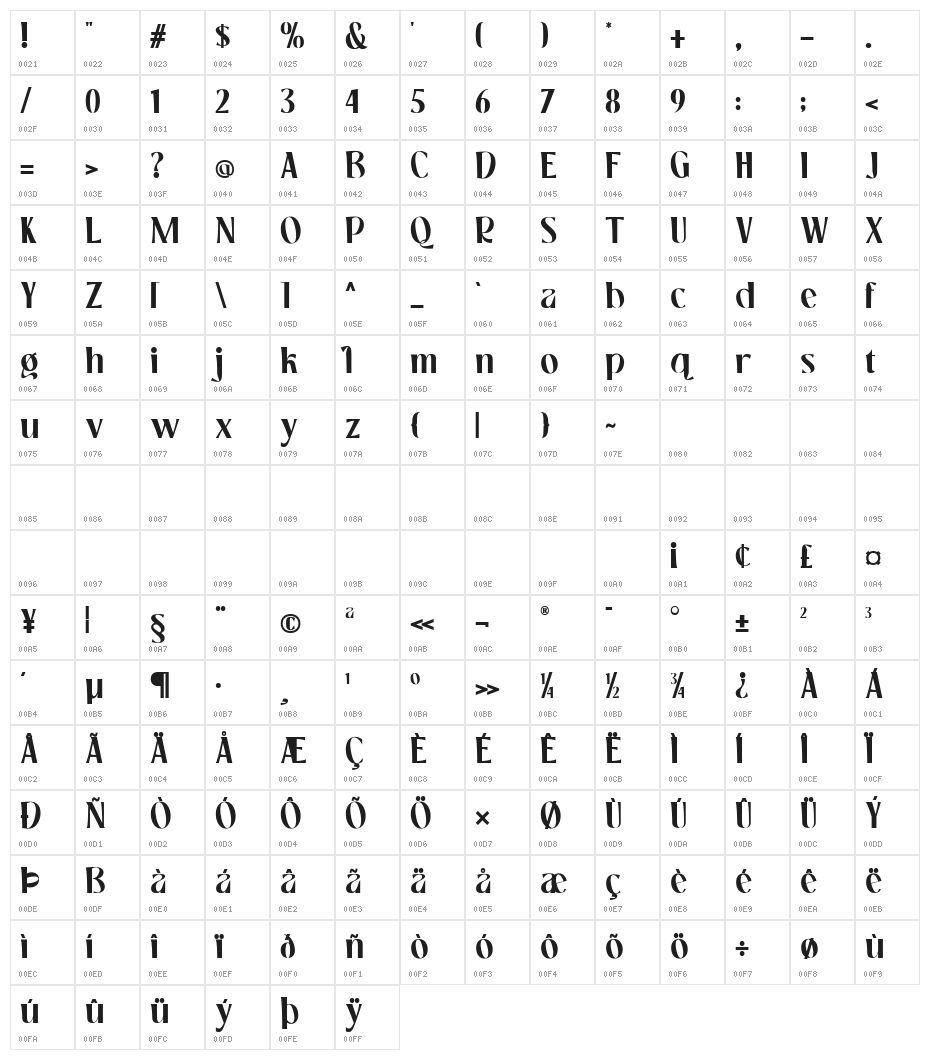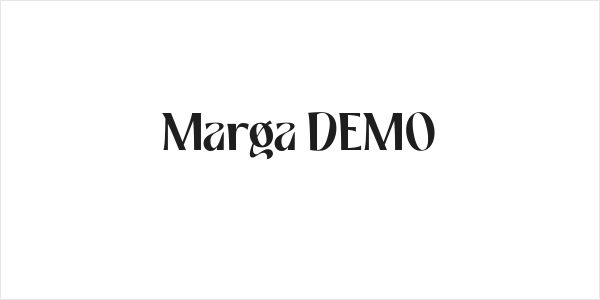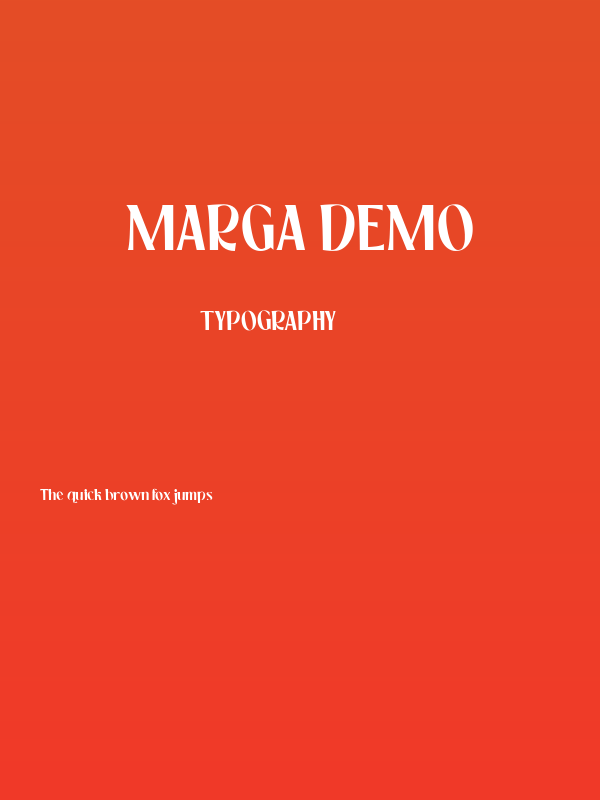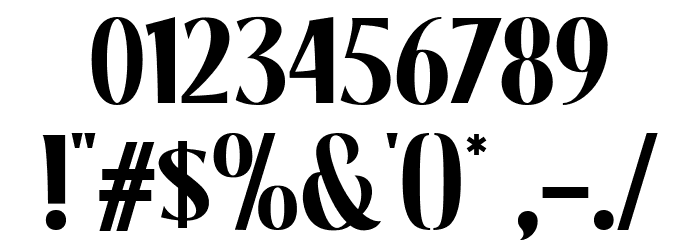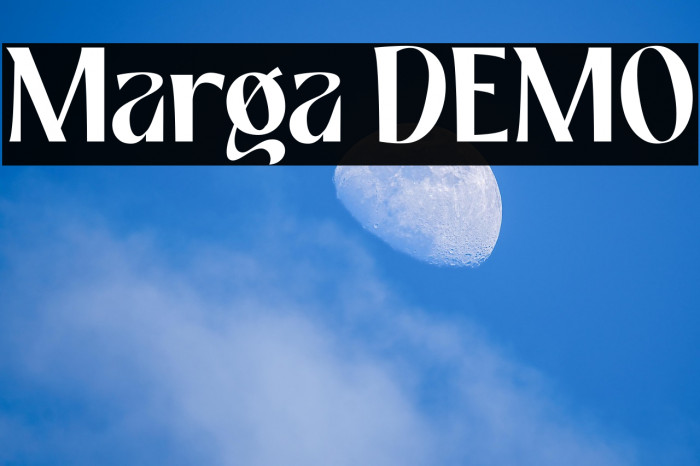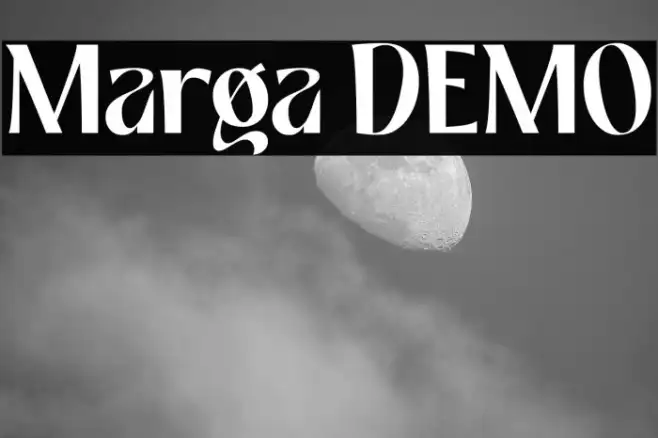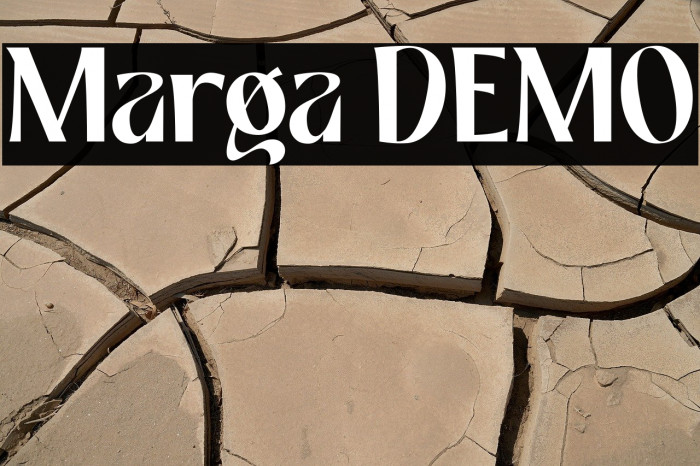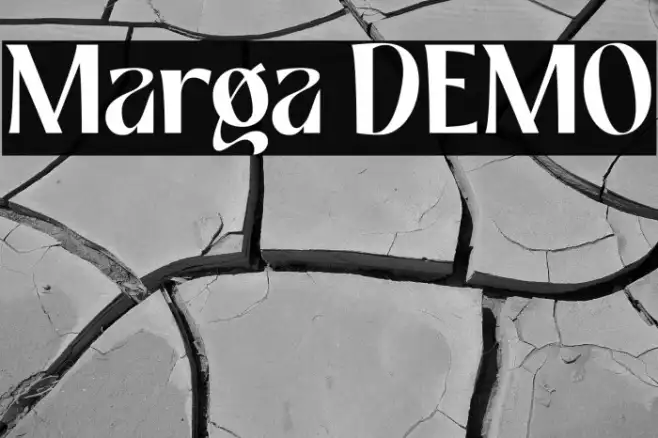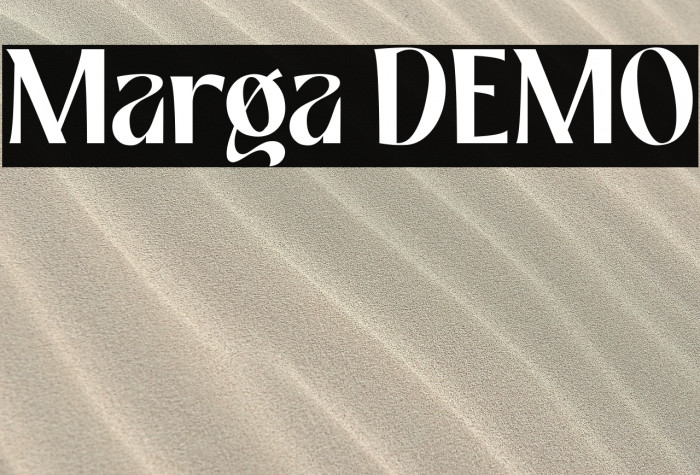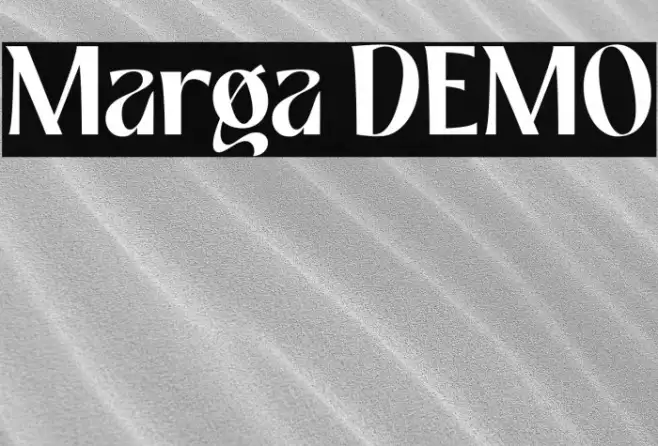
Marga DEMO Font
Marga DEMO Description
This font features a bold and dynamic style with a strong presence, characterized by its thick strokes and high contrast between thick and thin lines. The uppercase letters are tall and commanding, while the lowercase letters maintain a consistent flow with unique curves and angles. The numerals are equally bold, ensuring readability and impact. Special characters are designed with the same attention to detail, making them stand out. This font exudes a modern yet slightly retro vibe, making it versatile for various design needs.